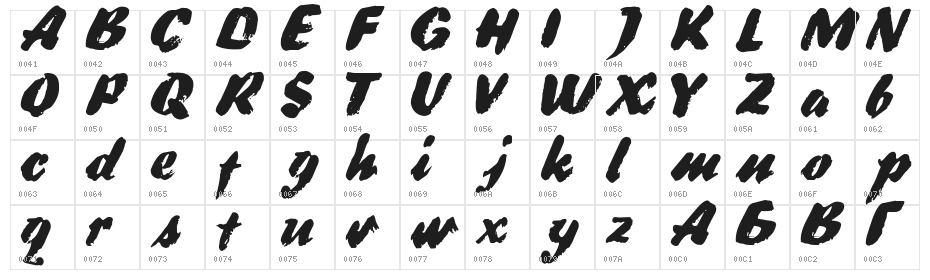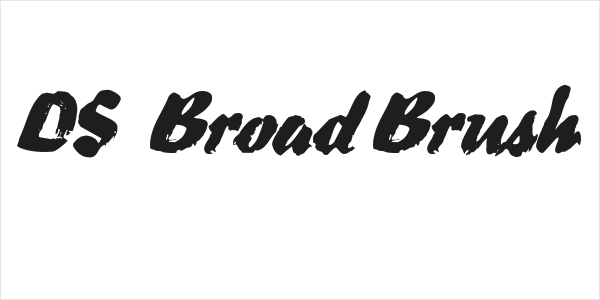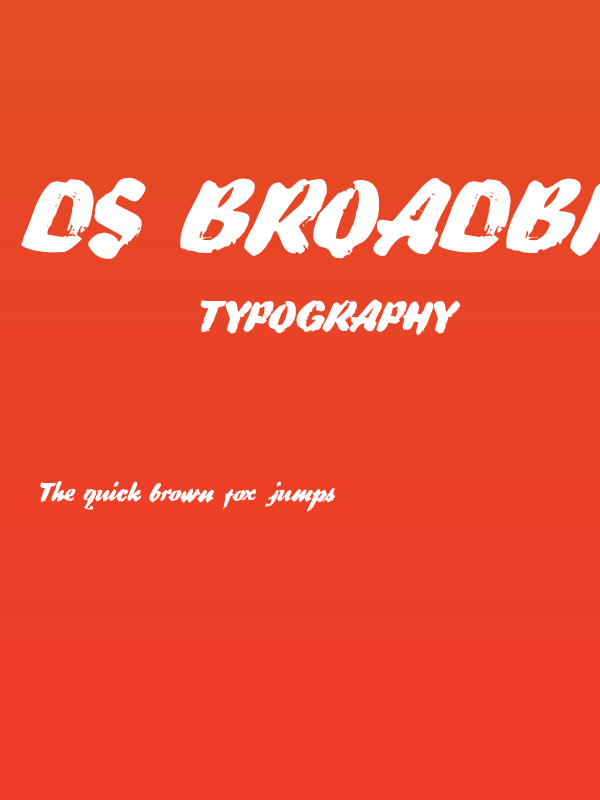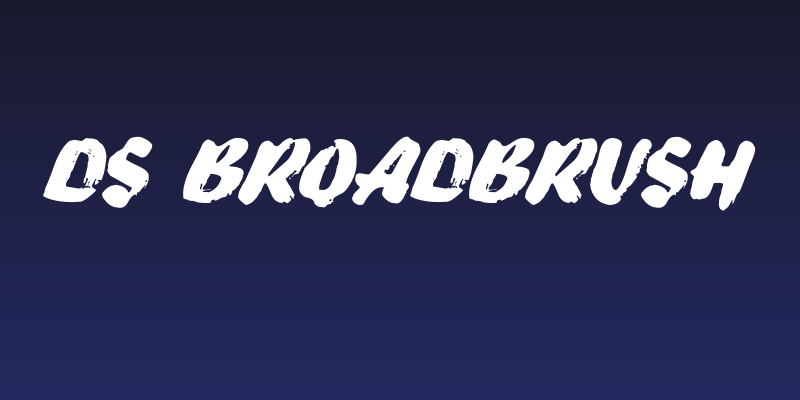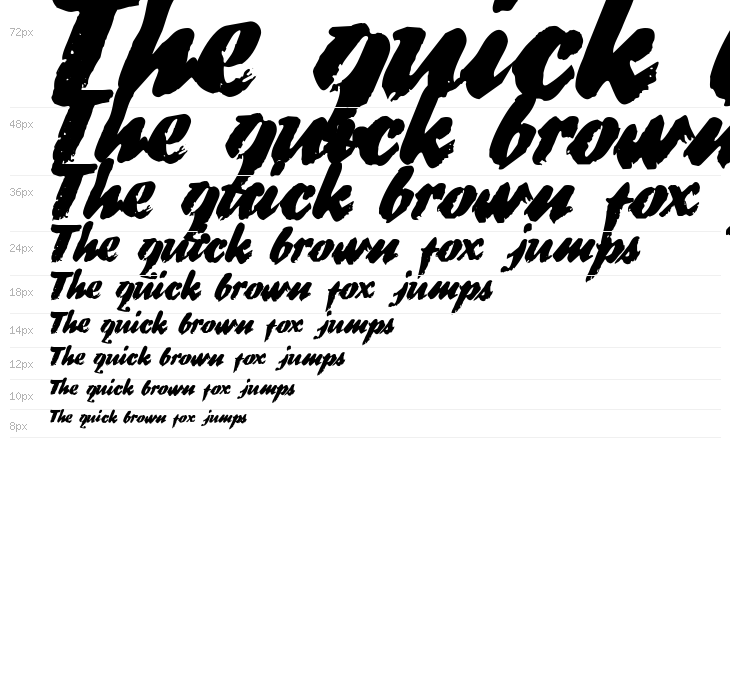
DS BroadBrush Font
DS BroadBrush Description
This font exhibits a bold, expressive style with a brush-like texture that adds a dynamic and artistic flair. The strokes are thick and uneven, giving it a hand-painted appearance. The uppercase and lowercase letters maintain a consistent style, with a slightly slanted orientation that enhances its energetic feel. The characters are closely spaced, creating a compact and cohesive look. This font is particularly striking due to its high contrast between thick and thin strokes, which adds depth and visual interest. The absence of numbers and special characters suggests a focus on alphabetic expression, making it ideal for creative projects.
| Overall Style | Artistic, Expressive |
| Proposed Projects | Ideal for posters, album covers, branding, and creative headlines. |